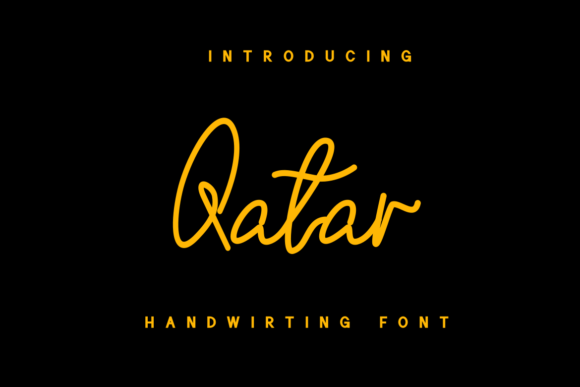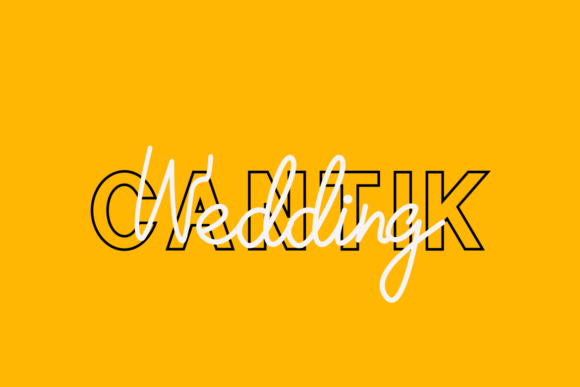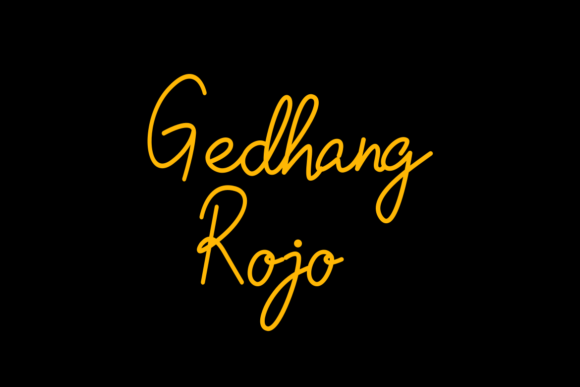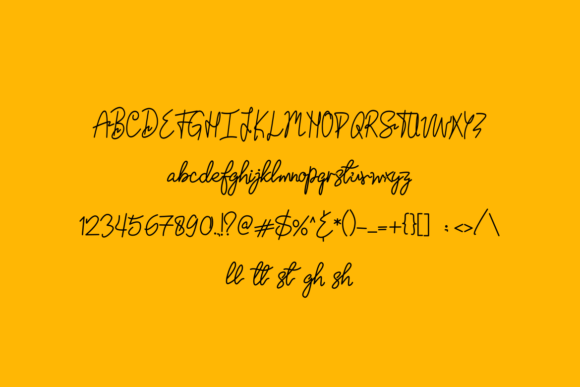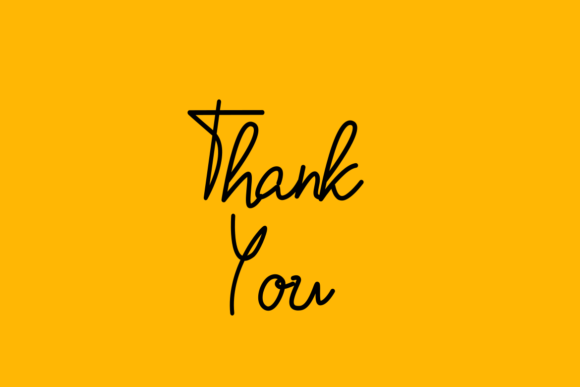
Qatar Font
About Qatar Font
Qatar is a lovely and casual handwritten font. Its playful style makes this font look incredibly versatile, fitting a wide range of designs, both formal and non-formal. Let your imagination be the limit!